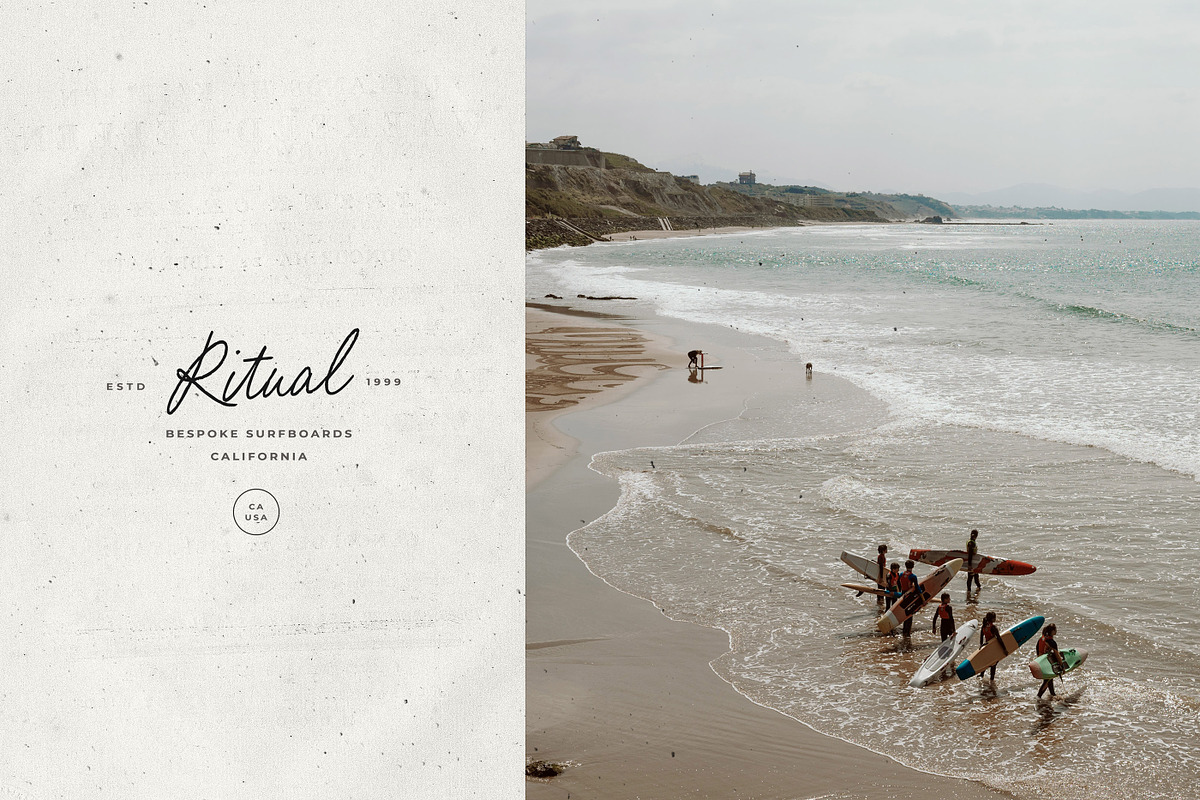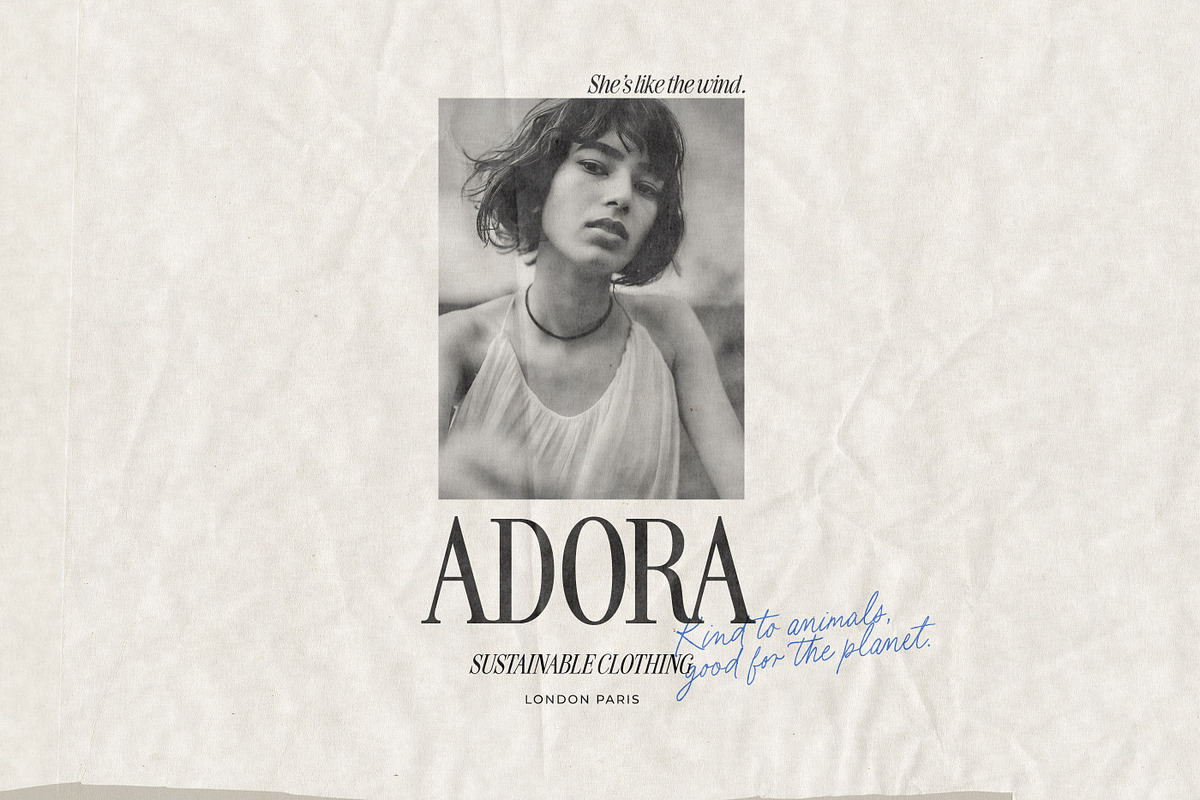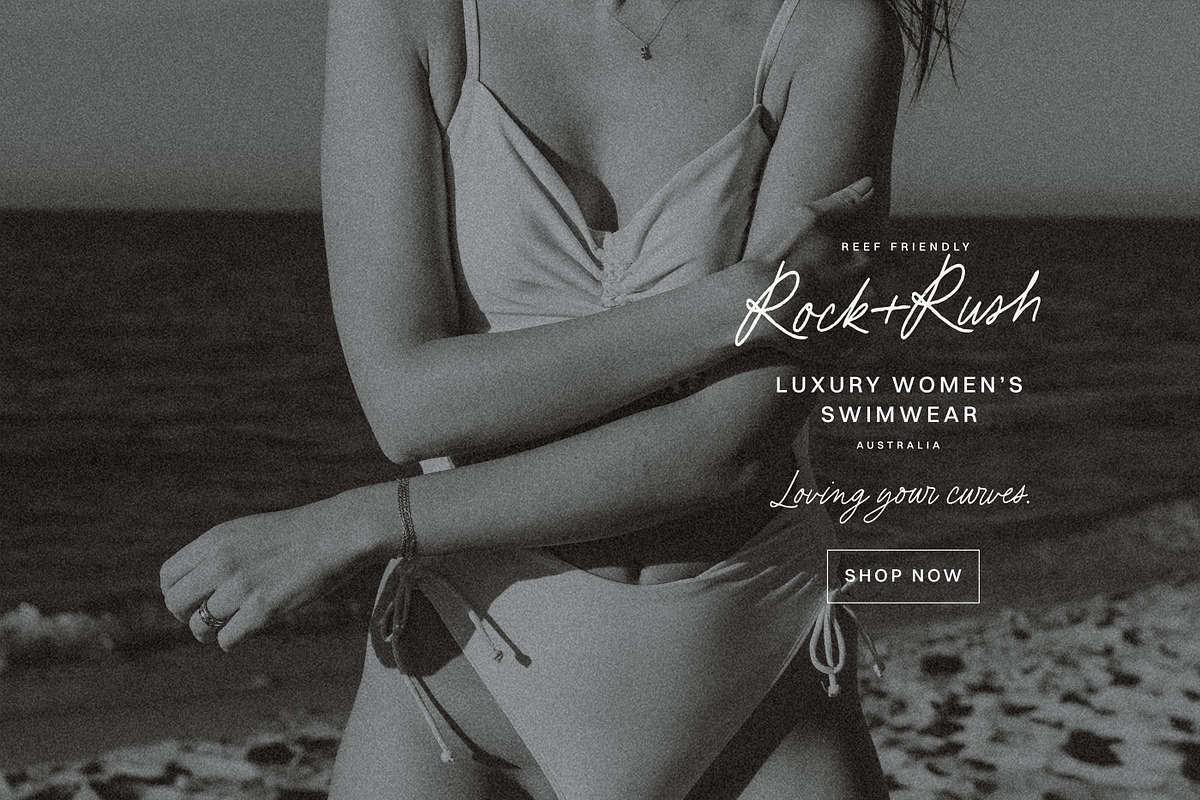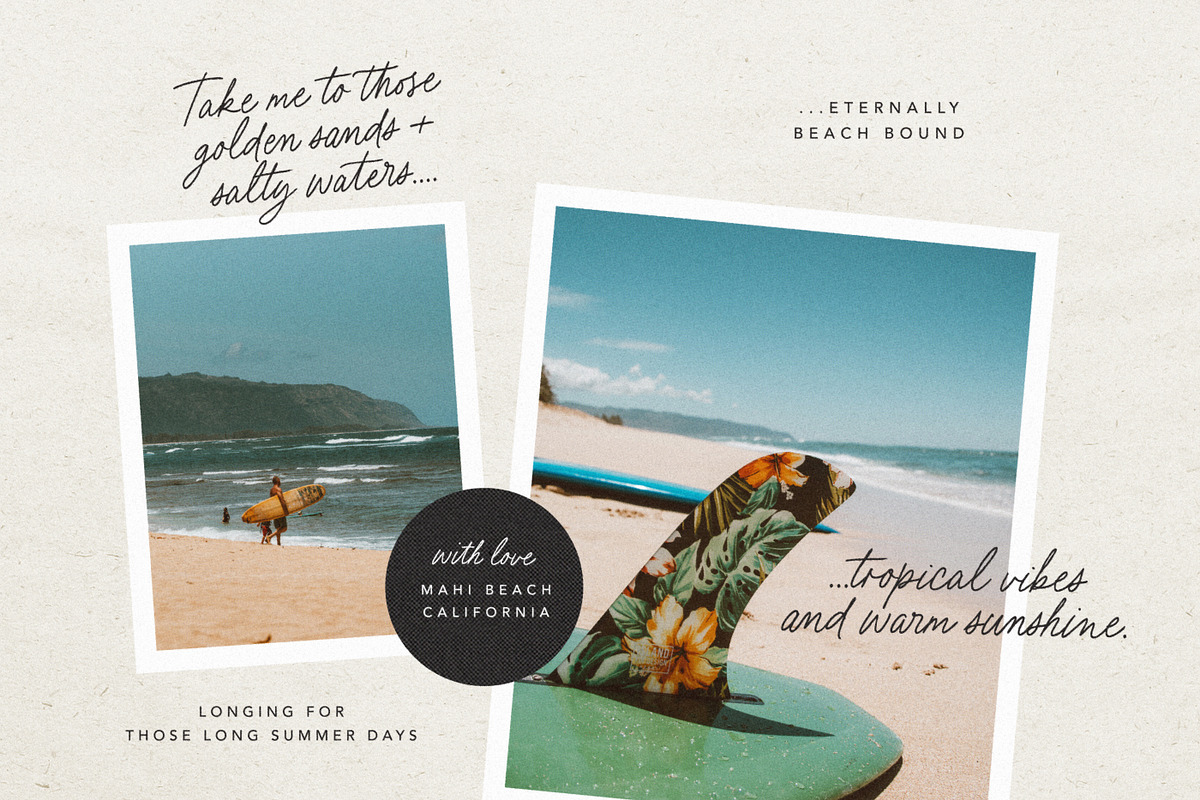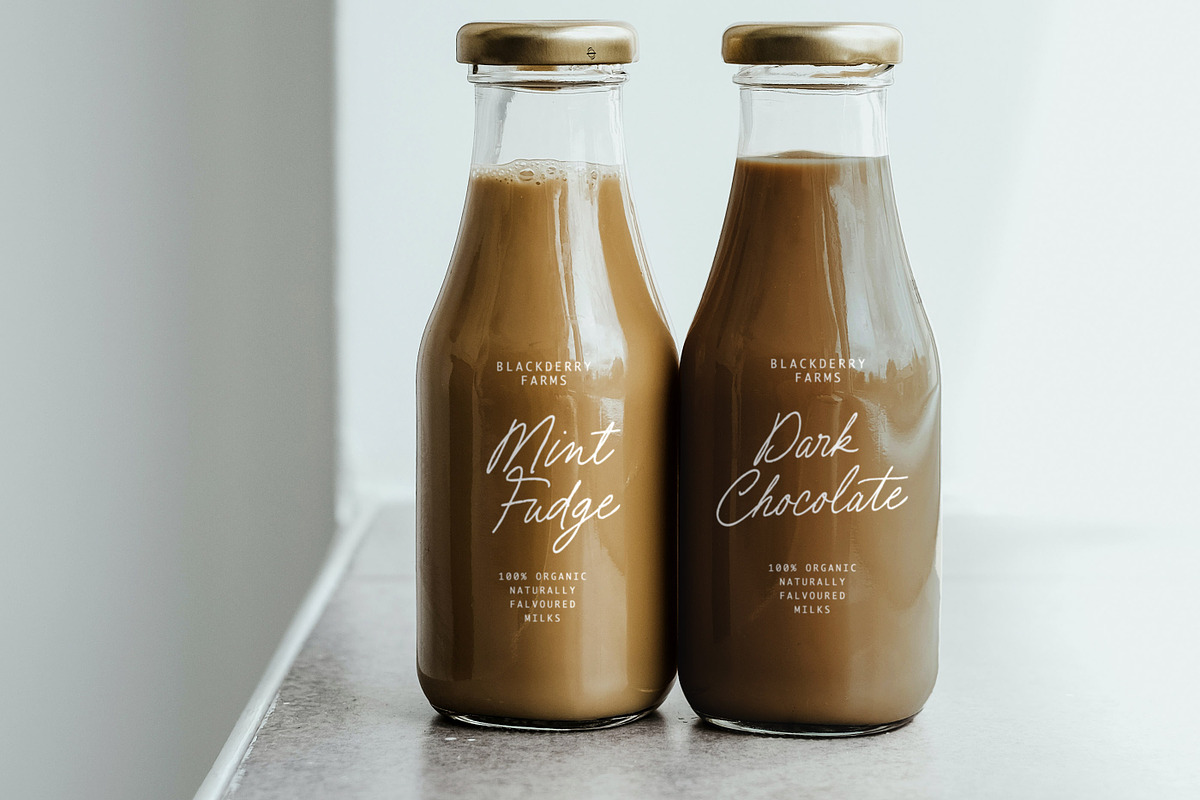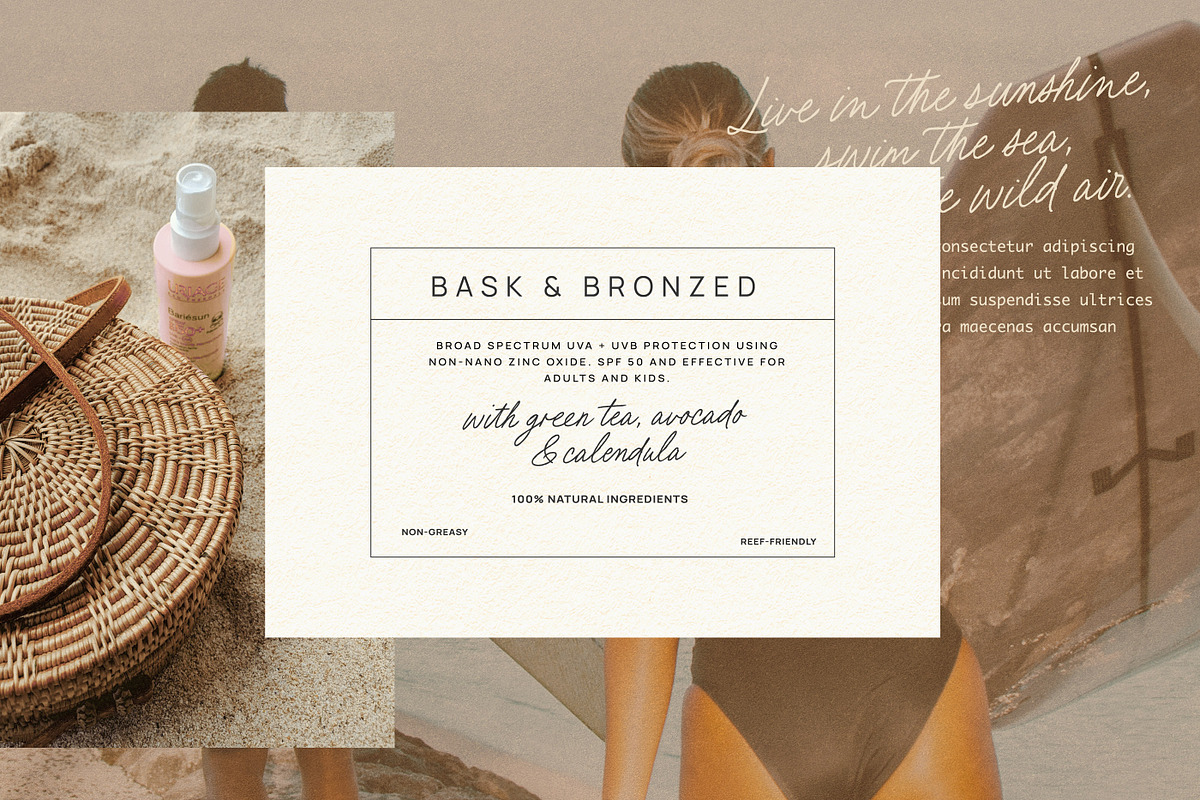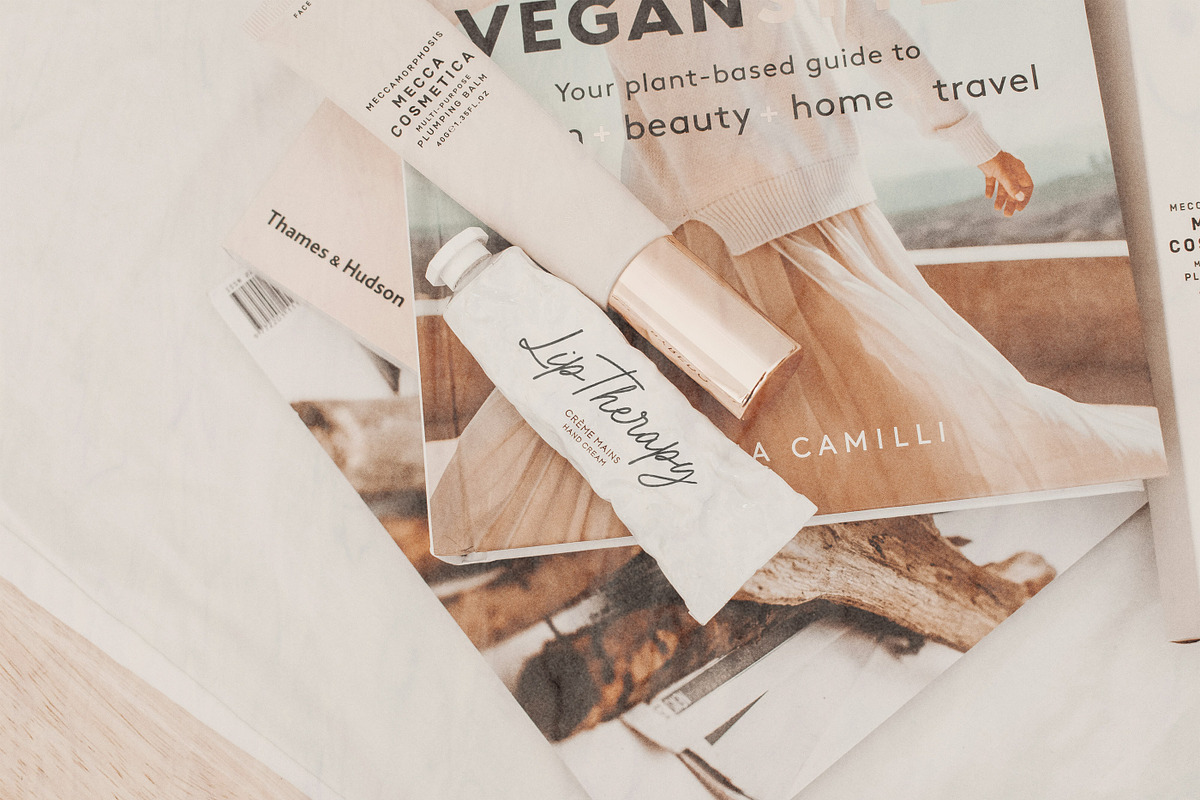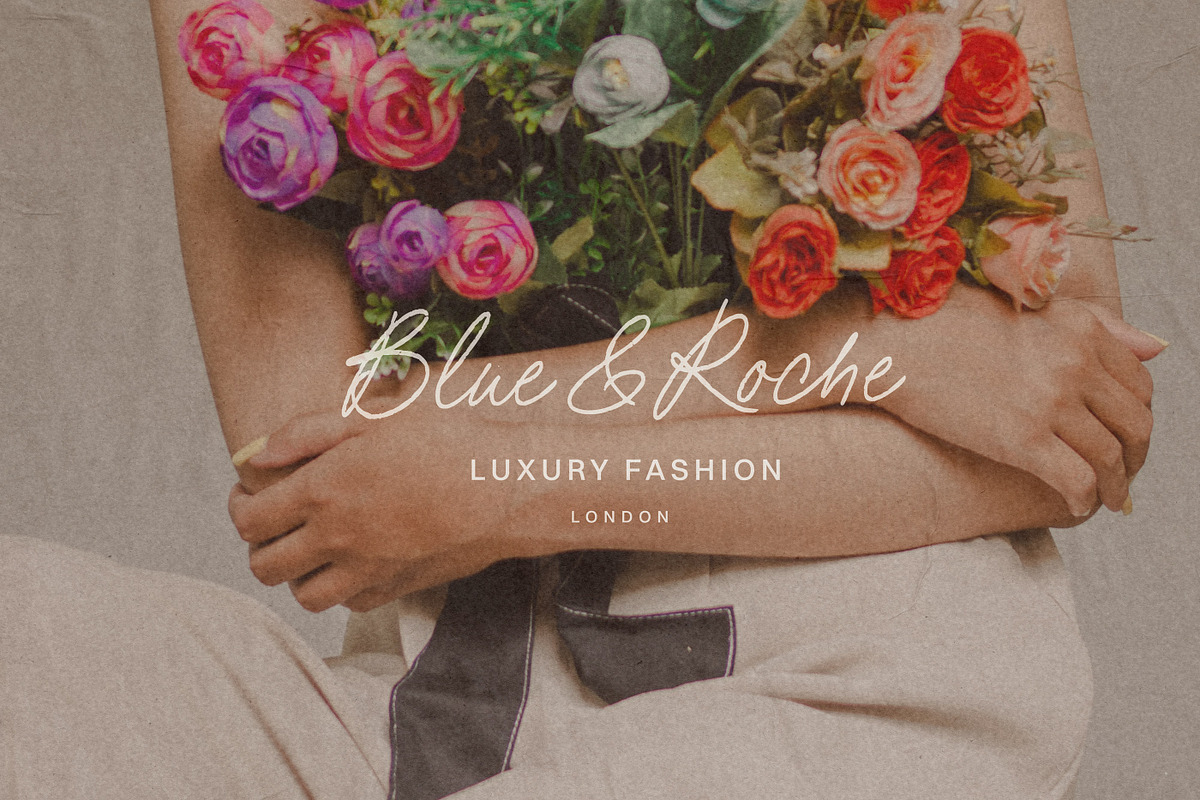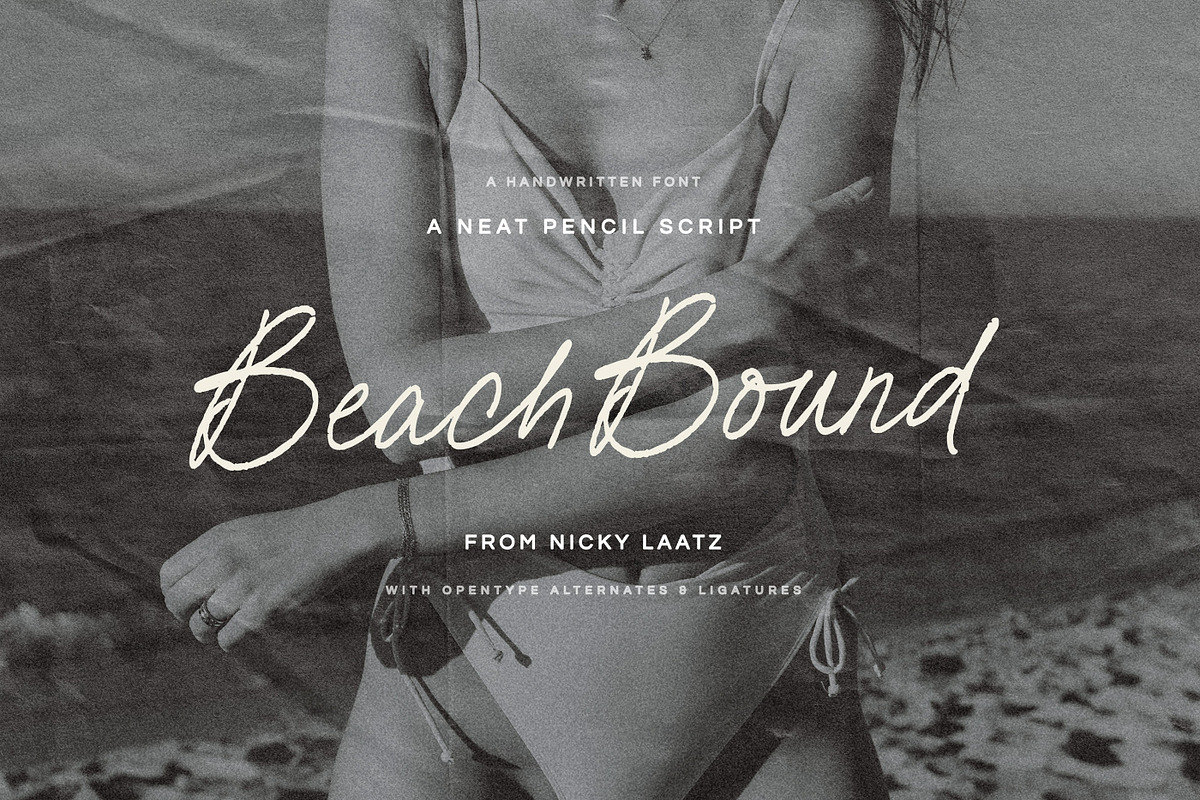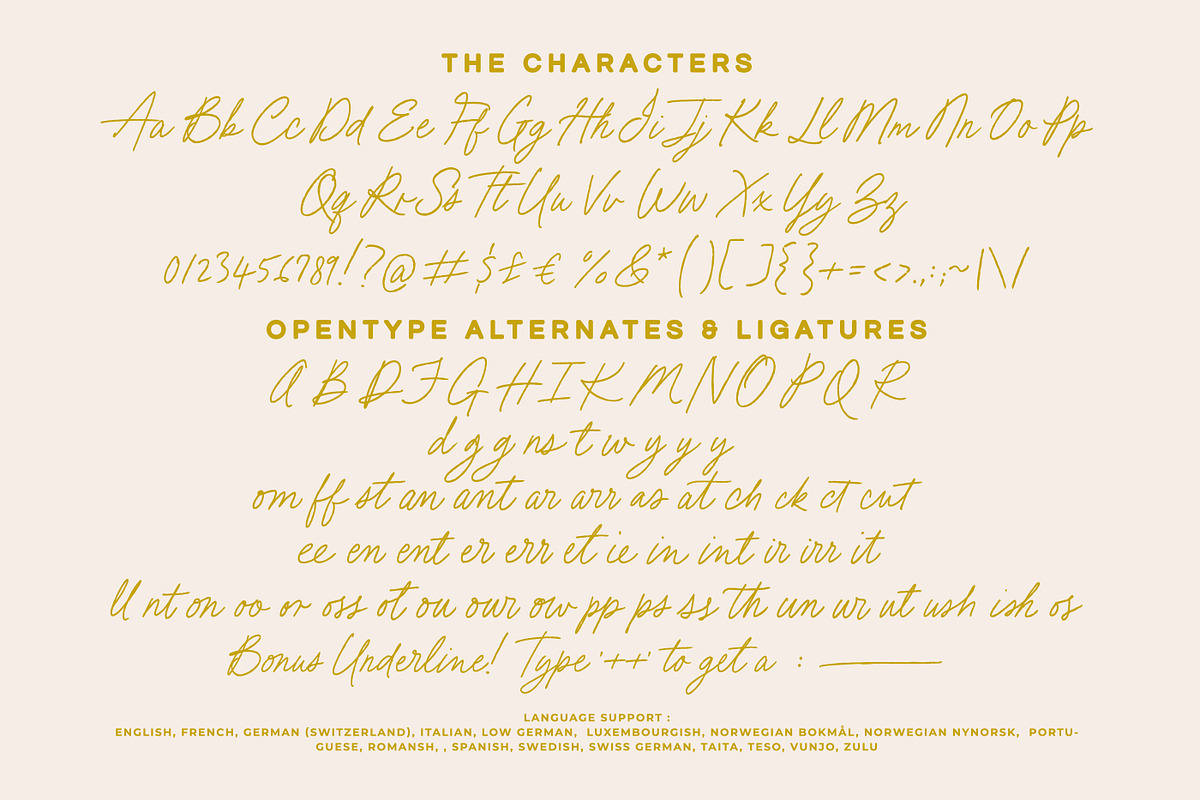
Beach Bound - A Fresh Pencil Script
Sometimes you just need a simple, neat hand-lettered script - Enter Beach Bound Script - Fashioned from real pencil handwriting with Extra OpenType ligatures and alternates to really bring her to life on the page.
She can be dainty, she can be chic - she can be sexy, she can be cute. A super versatile script Two weights of the script are included.